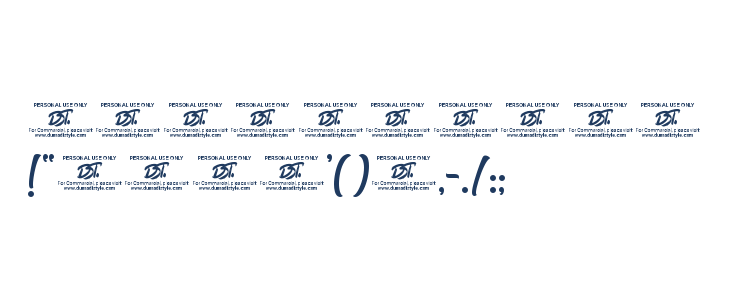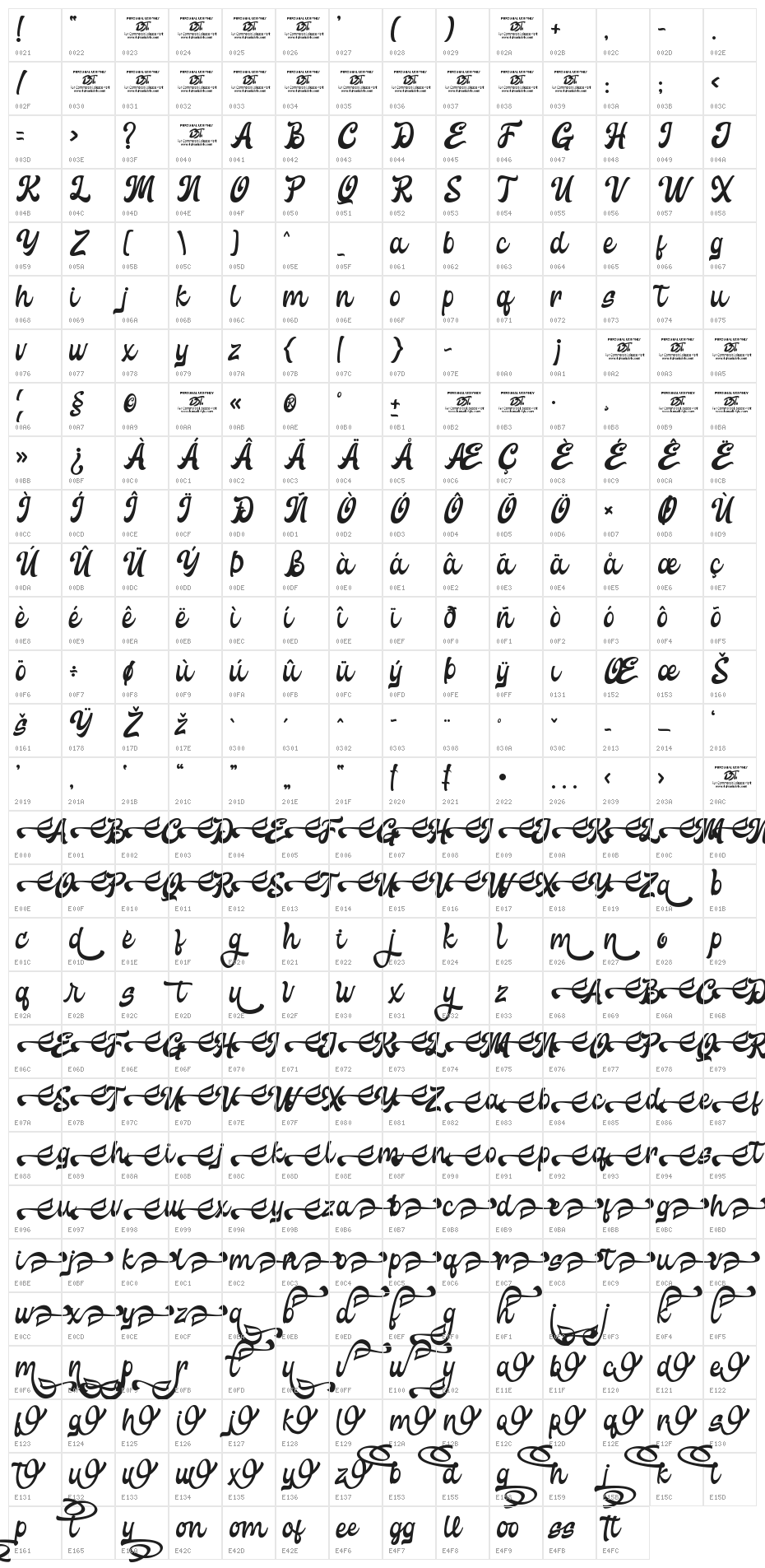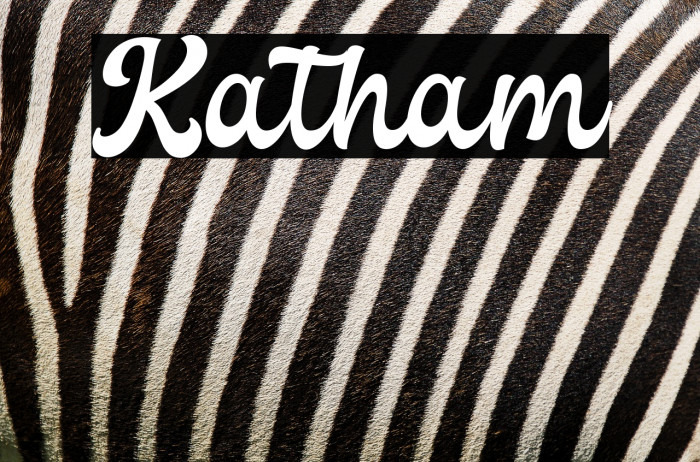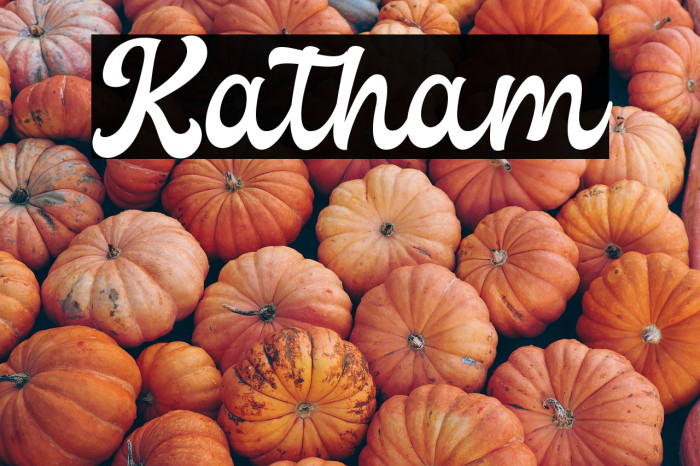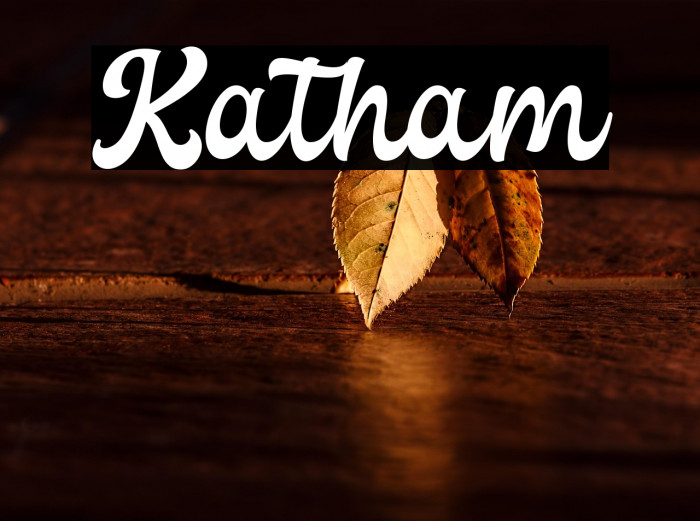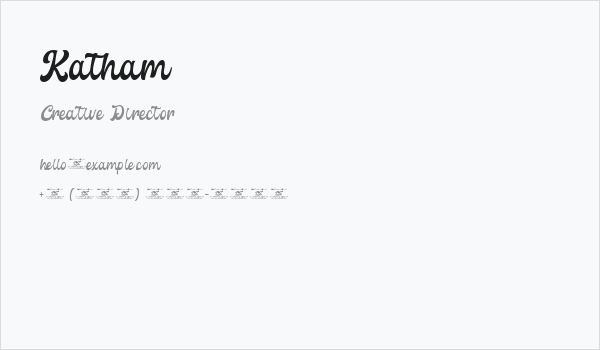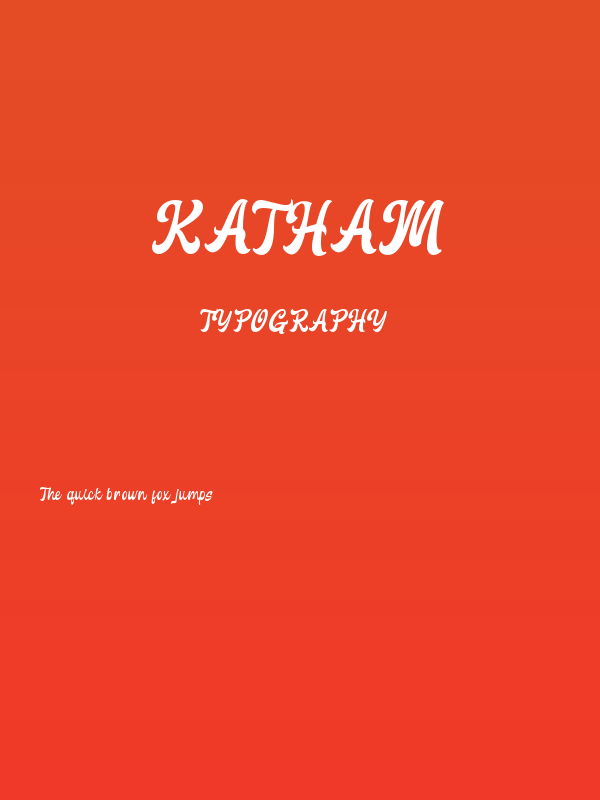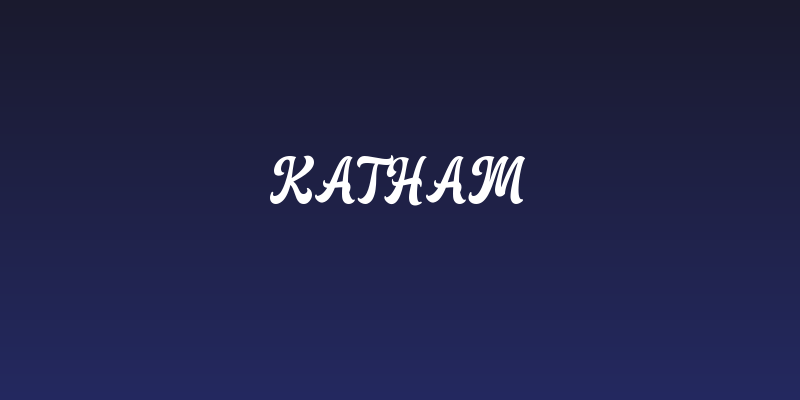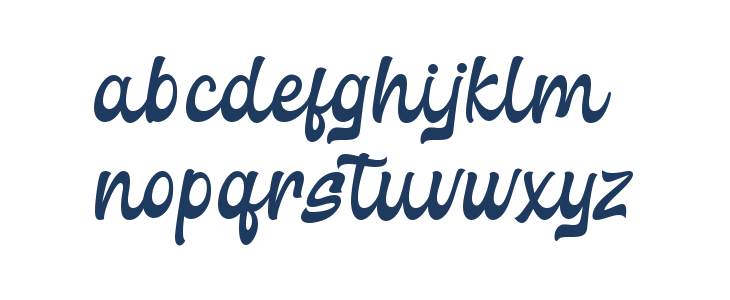
Katham Font
Katham Description
This font features a bold and flowing script style, characterized by its elegant and smooth curves. The uppercase letters are slightly more elaborate, with decorative flourishes that add a touch of sophistication. The lowercase letters maintain a consistent flow, making the text appear connected and harmonious. The overall design is both stylish and readable, suitable for a variety of creative applications. The numerals and special characters are designed to match the script's aesthetic, ensuring a cohesive look across all text elements.
| Proposed Projects | Ideal for wedding invitations, branding projects, greeting cards, and elegant signage. |